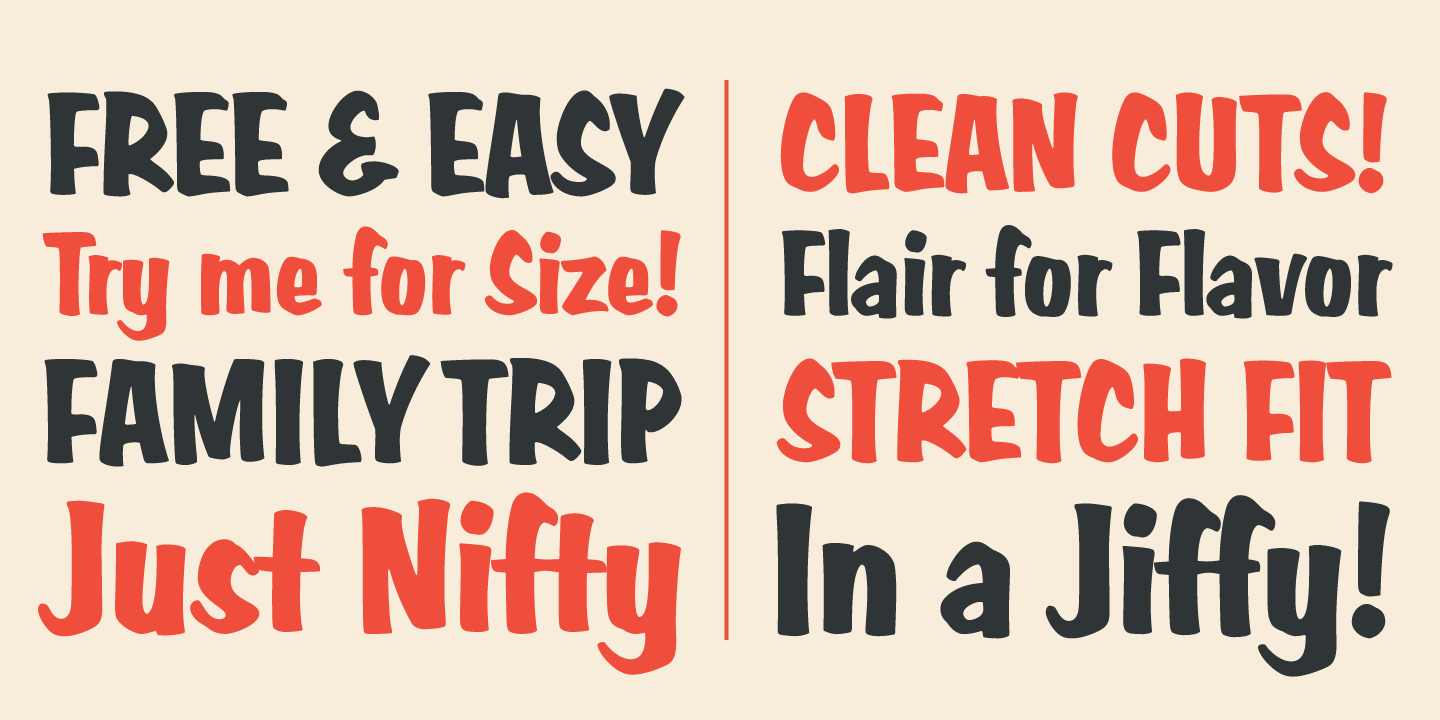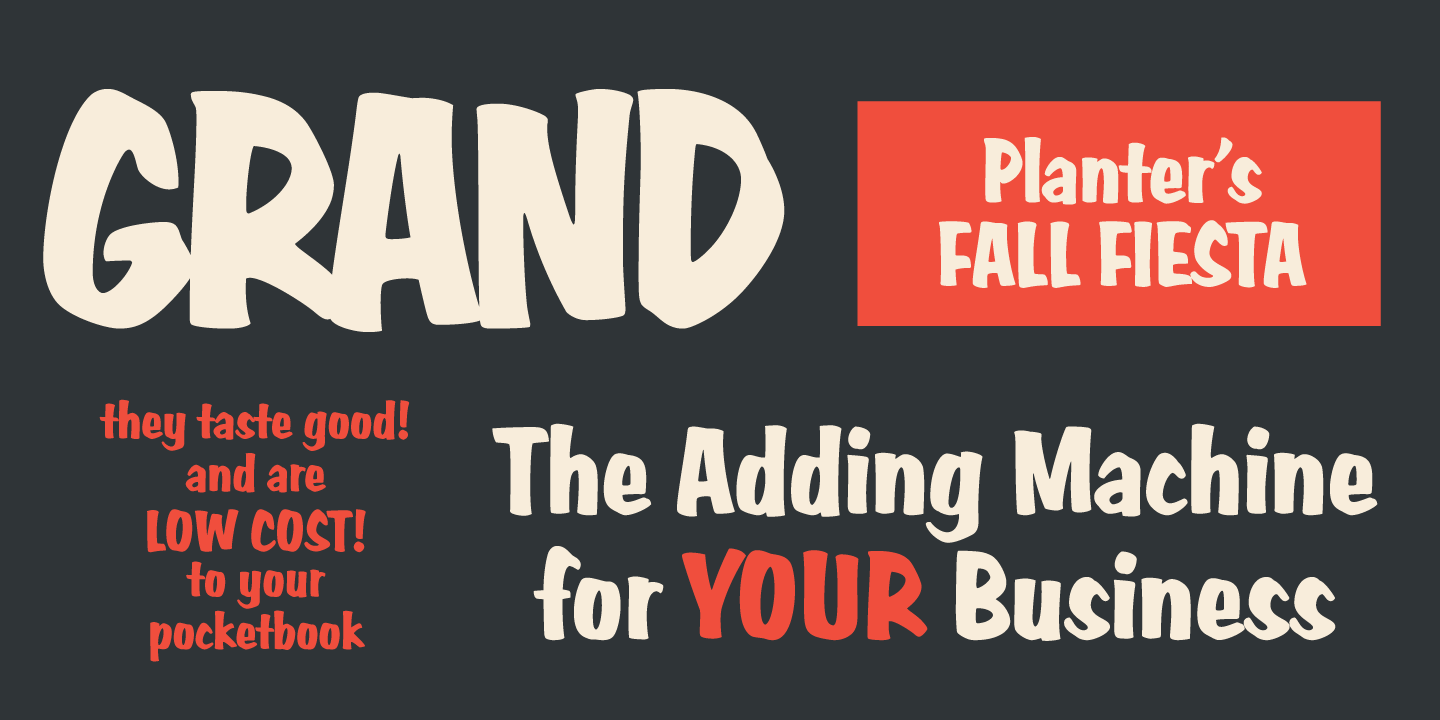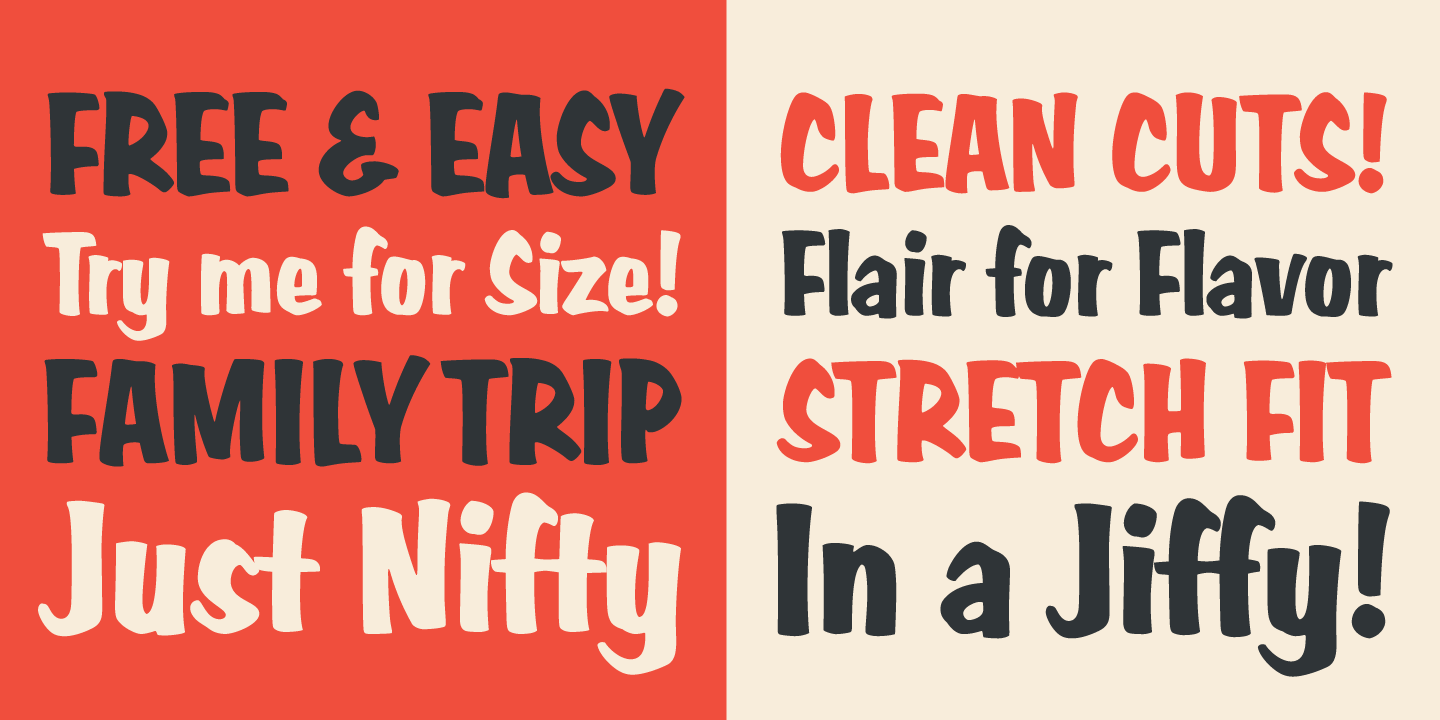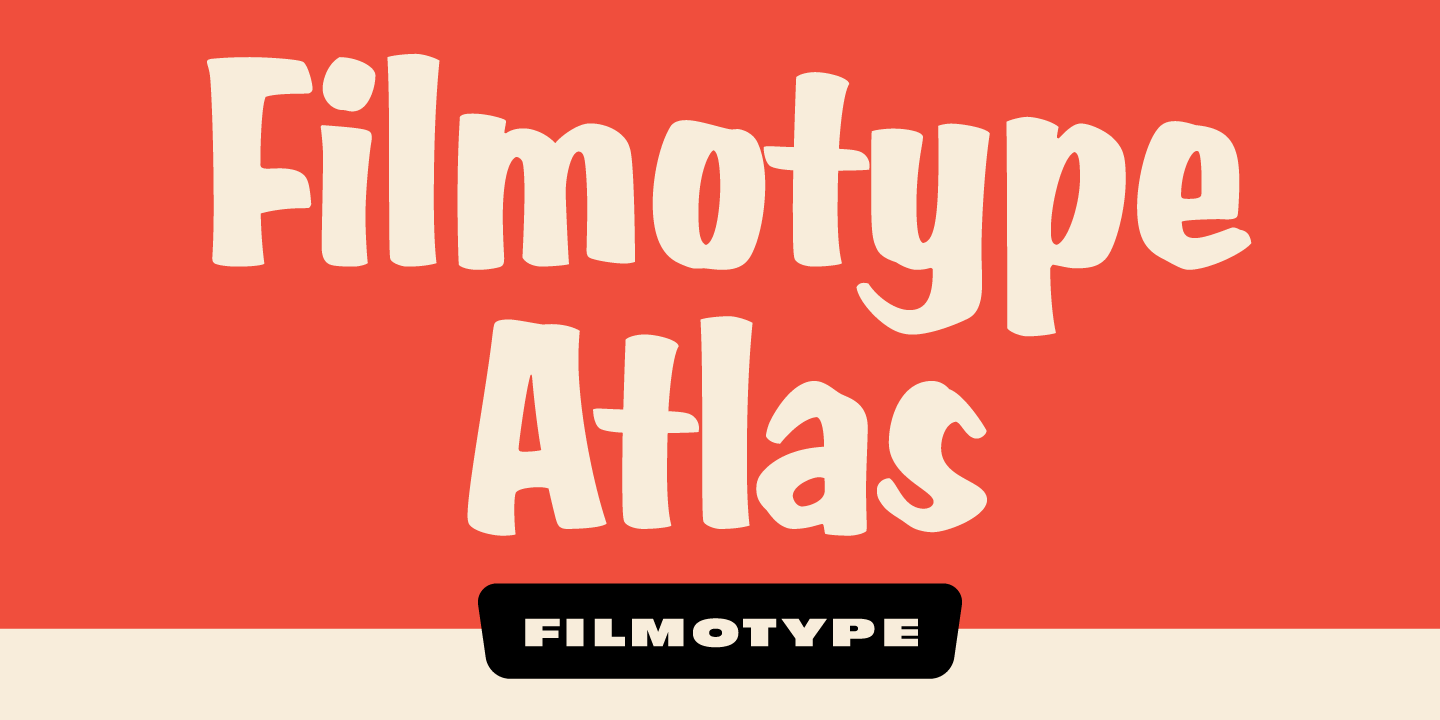
Filmotype Atlas
About Filmotype Atlas
Filmotype Atlas was among the company's earliest brush lettered casuals and was introduced by Filmotype in the early-to-mid 1950s. It perfectly captures informal sign painter hand lettering while providing comfortable readability. Developed from the…